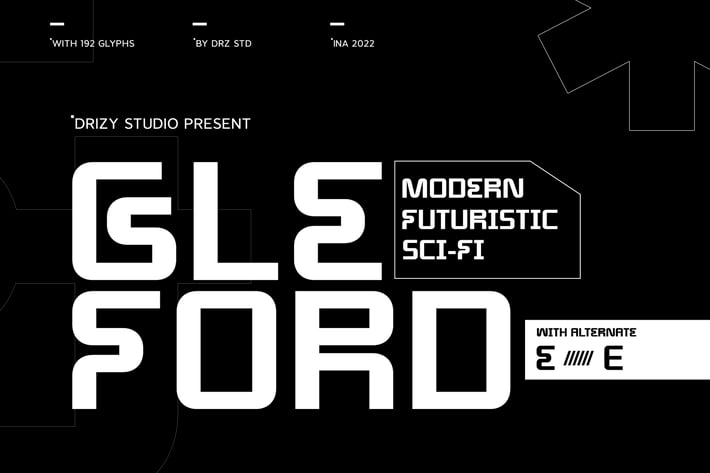
Gleford - Modern Sci-fi Font
Gleford is a Modern Sci-fi Font from Drizy Studio. Offering all the styles you need for Sci-fi theme of your projects.
Gleford features:
Punctuation & Numbers
Alternates